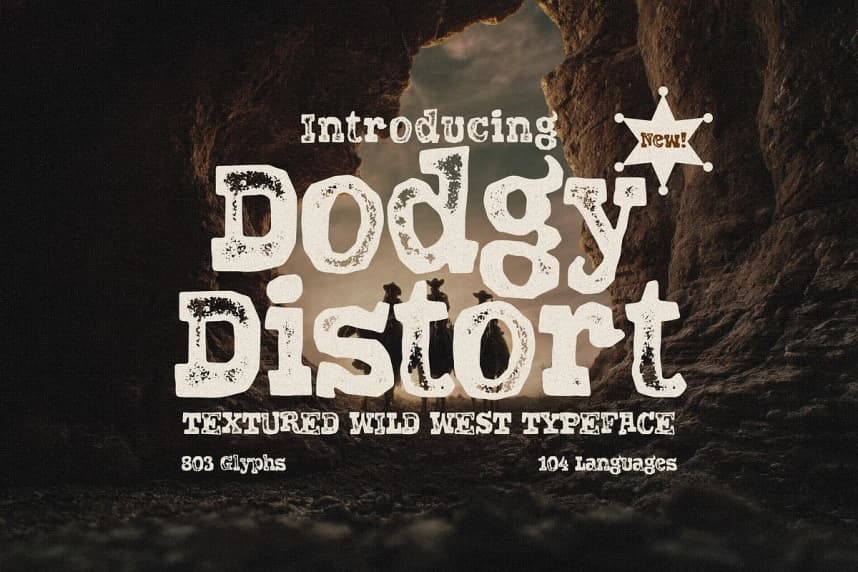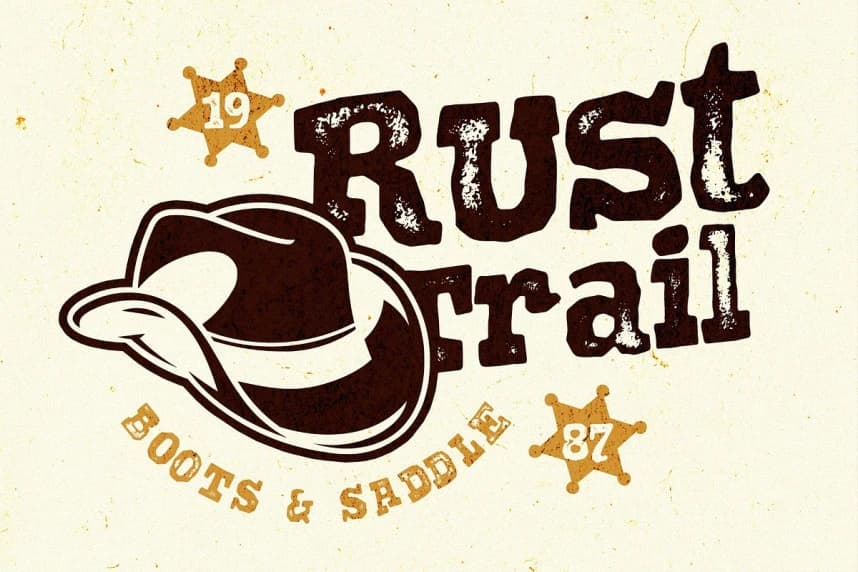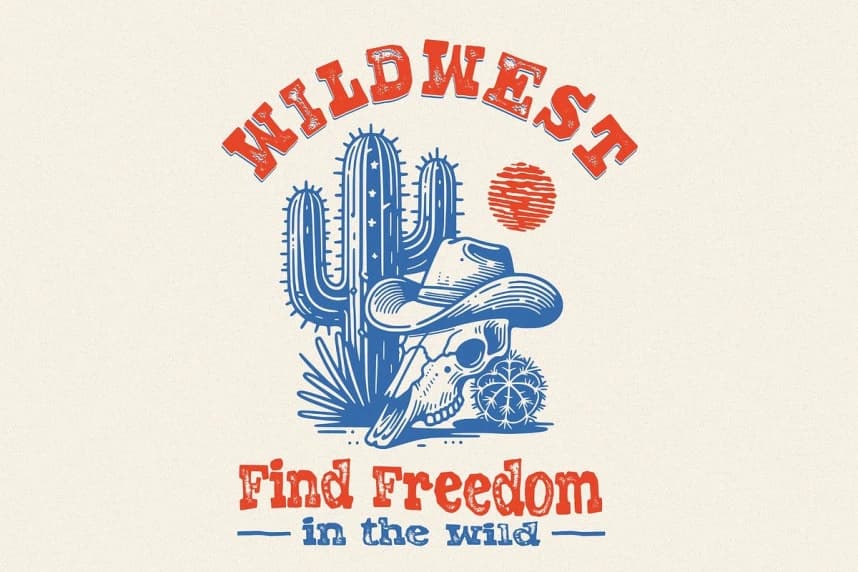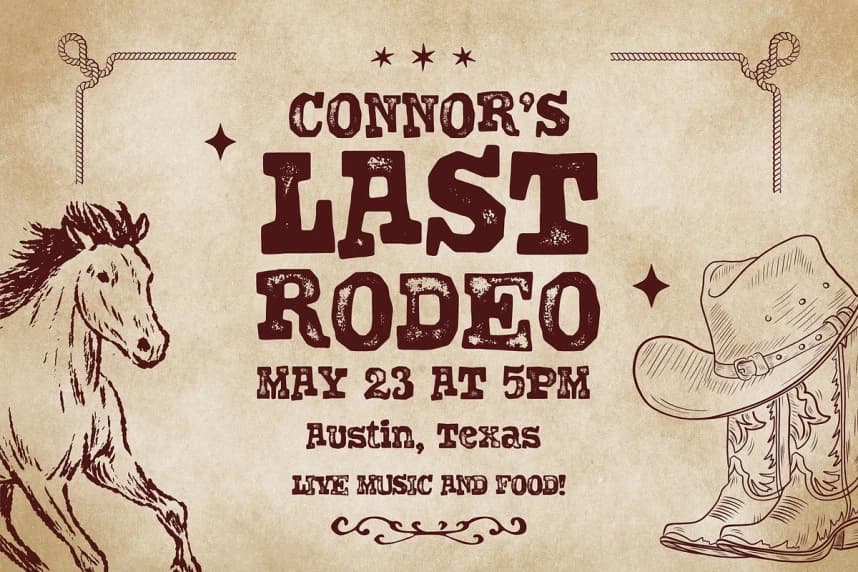
Dodgy Distort Font
Dodgy Distort Font is a wildly charismatic Wild West typeface that brings the dust, grit, and swagger of the frontier to your fingertips. With its 803 glyphs and support for 104 languages, this font doesn’t just talk the talk, it draws fast.